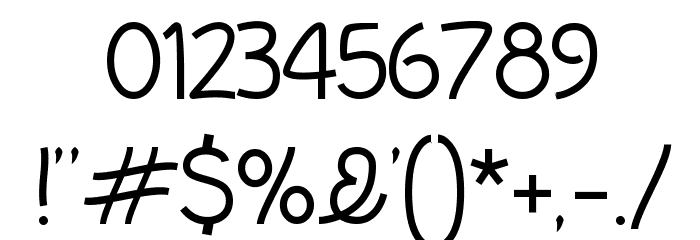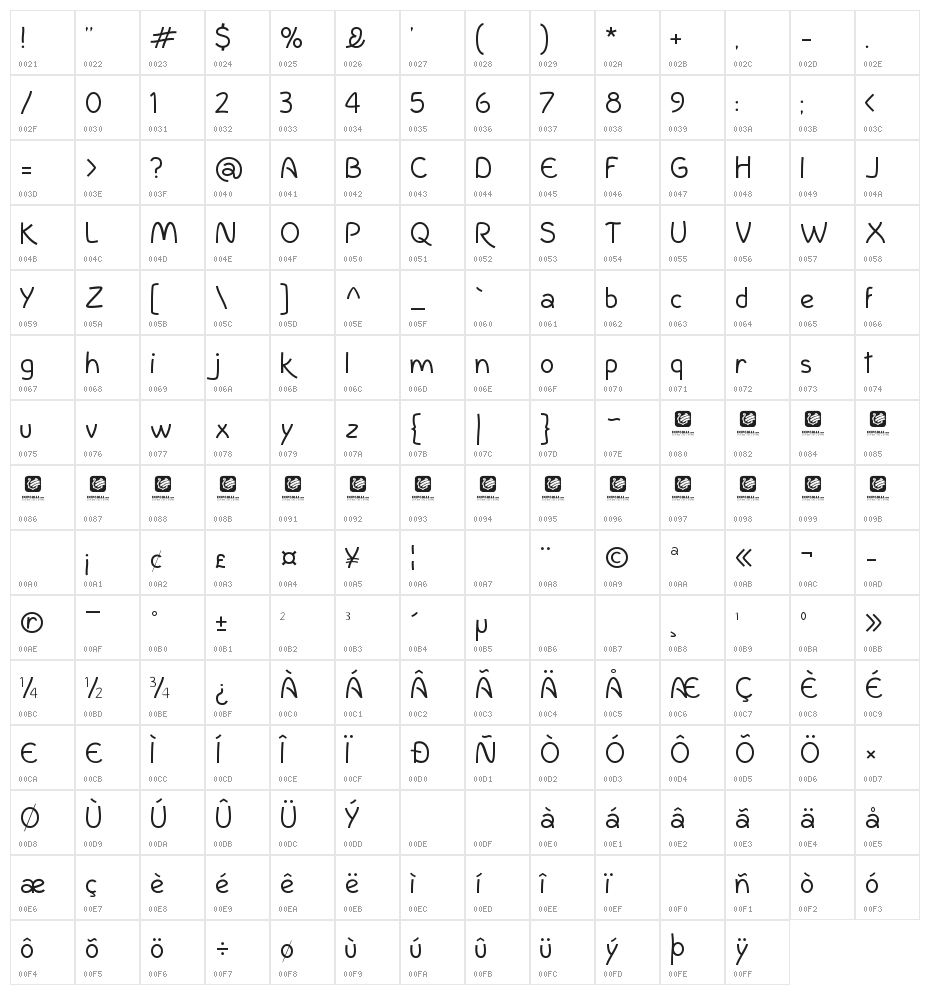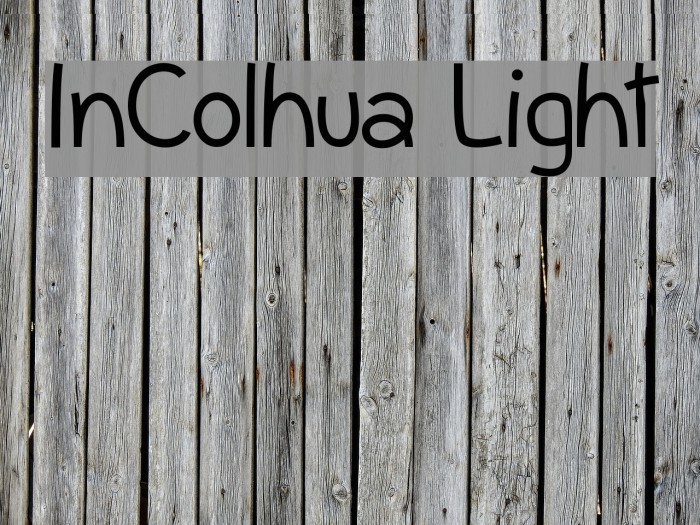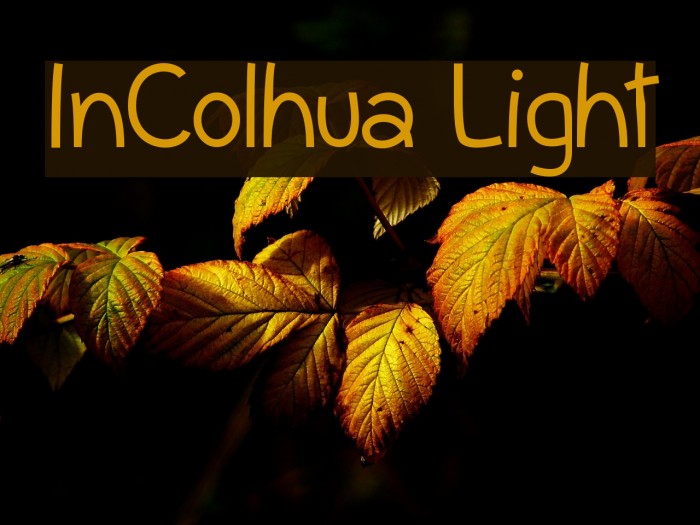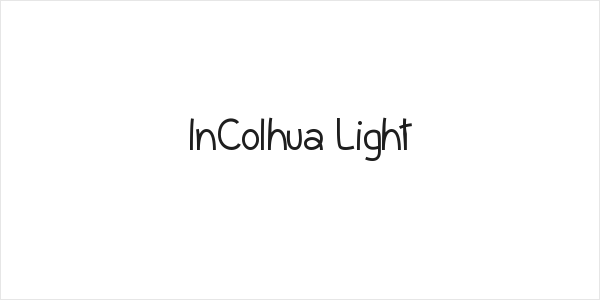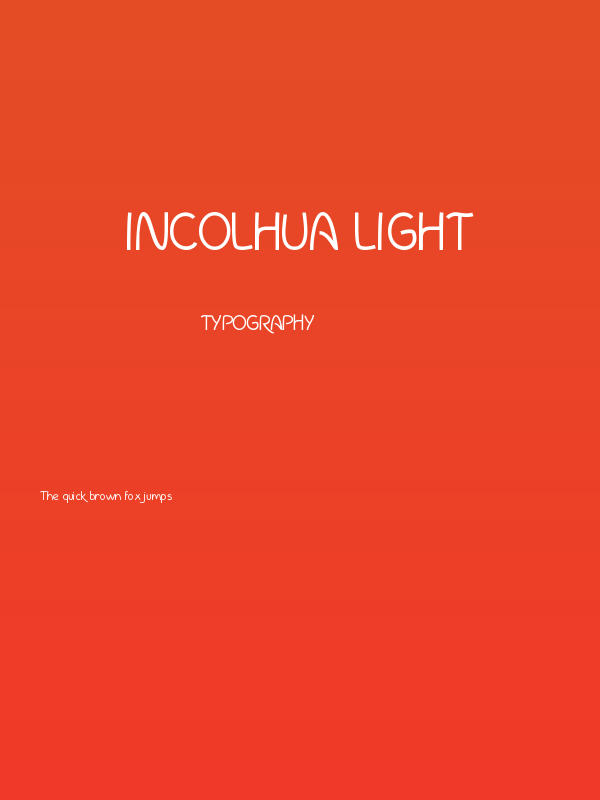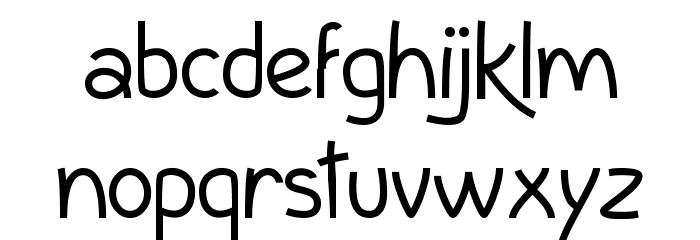
InColhua Light Font
InColhua Light Description
This font features a playful and whimsical design, characterized by its rounded and slightly irregular letterforms. The strokes are smooth and consistent, giving it a friendly and approachable appearance. The uppercase and lowercase letters maintain a cohesive style, with a slight tilt that adds to its casual charm. The numerals are clear and legible, matching the overall aesthetic. Special characters are well-integrated, ensuring versatility in various contexts. The font's unique style makes it suitable for creative projects that require a touch of personality and flair.